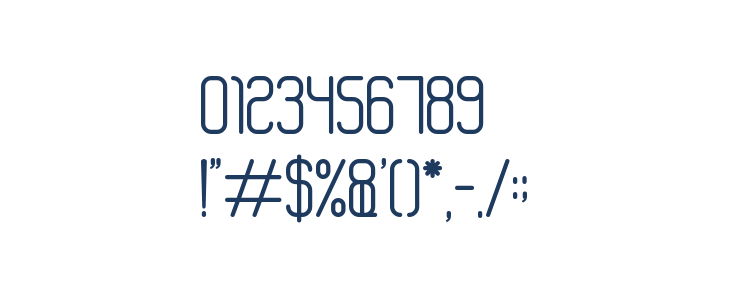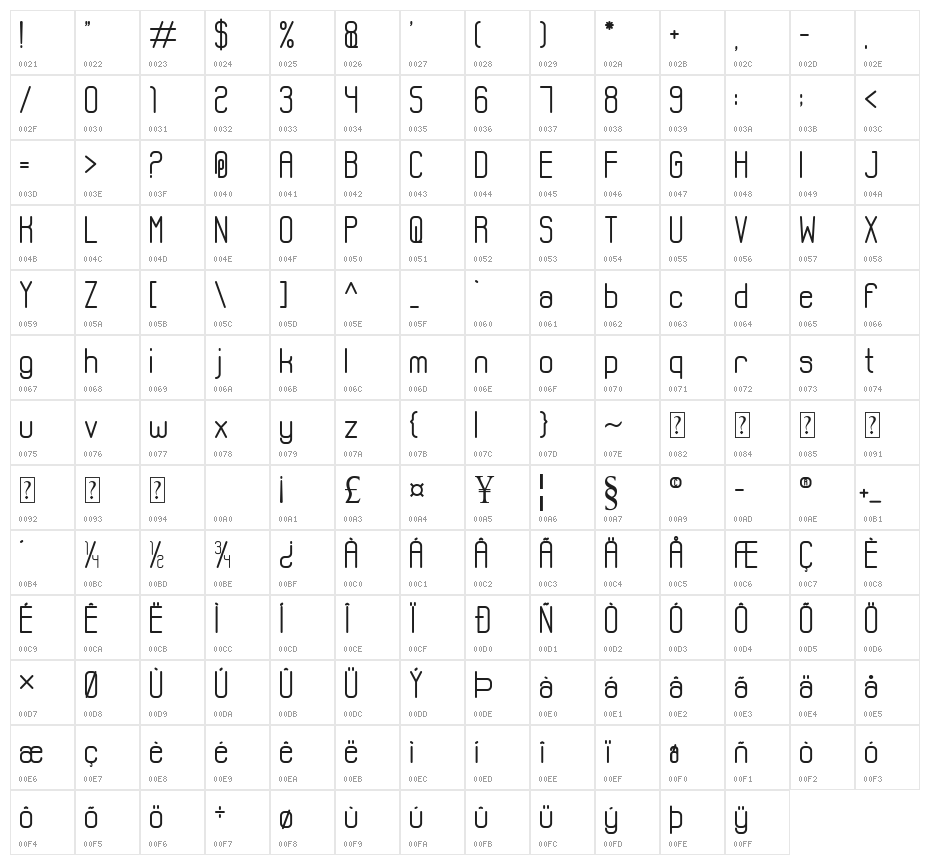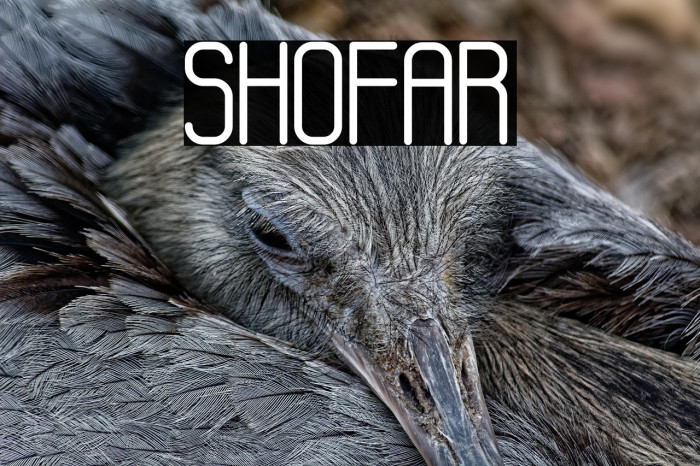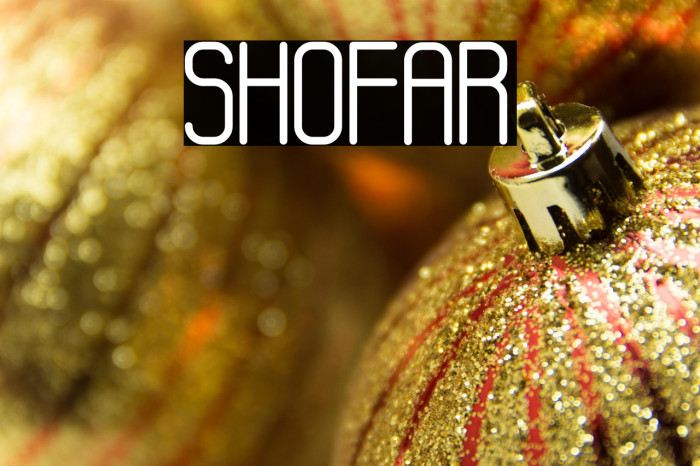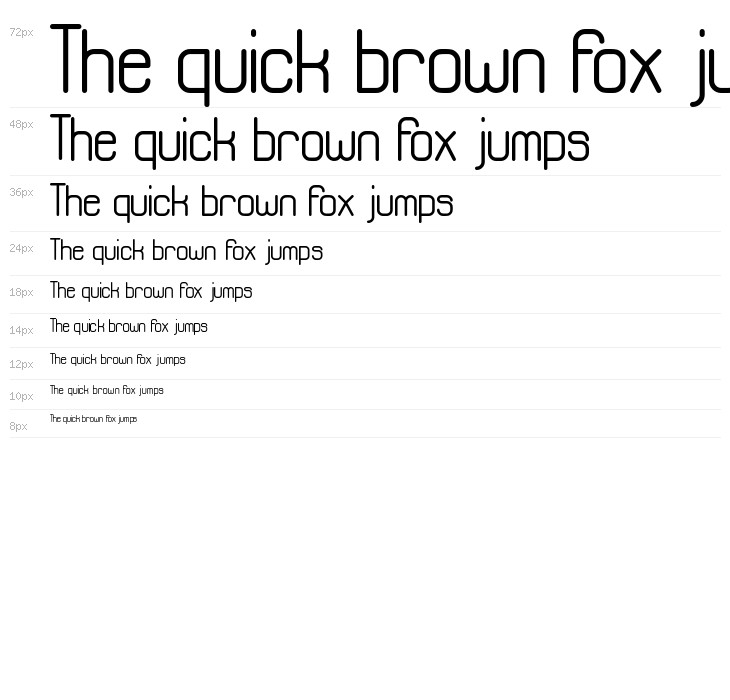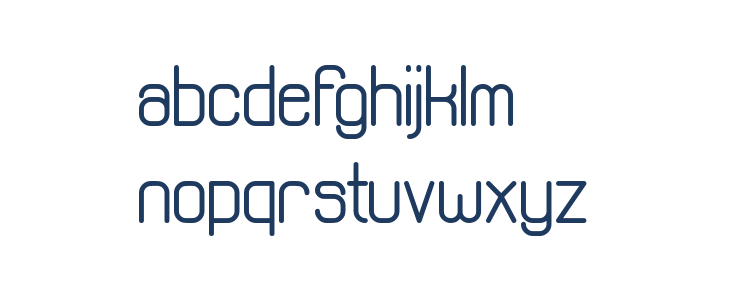
SHOFAR Font
SHOFAR Description
This font features a modern, geometric design with rounded edges and a clean, streamlined appearance. The characters are uniformly structured, offering a sense of balance and harmony. The uppercase and lowercase letters maintain a consistent style, with a slightly condensed width that enhances readability. The numerals and special characters are designed to match the overall aesthetic, providing a cohesive look across all elements. The font's simplicity and clarity make it suitable for various applications, from digital interfaces to print media.
| Proposed Projects | Ideal for digital interfaces, branding, advertising, and print media where a modern and clean look is desired. |